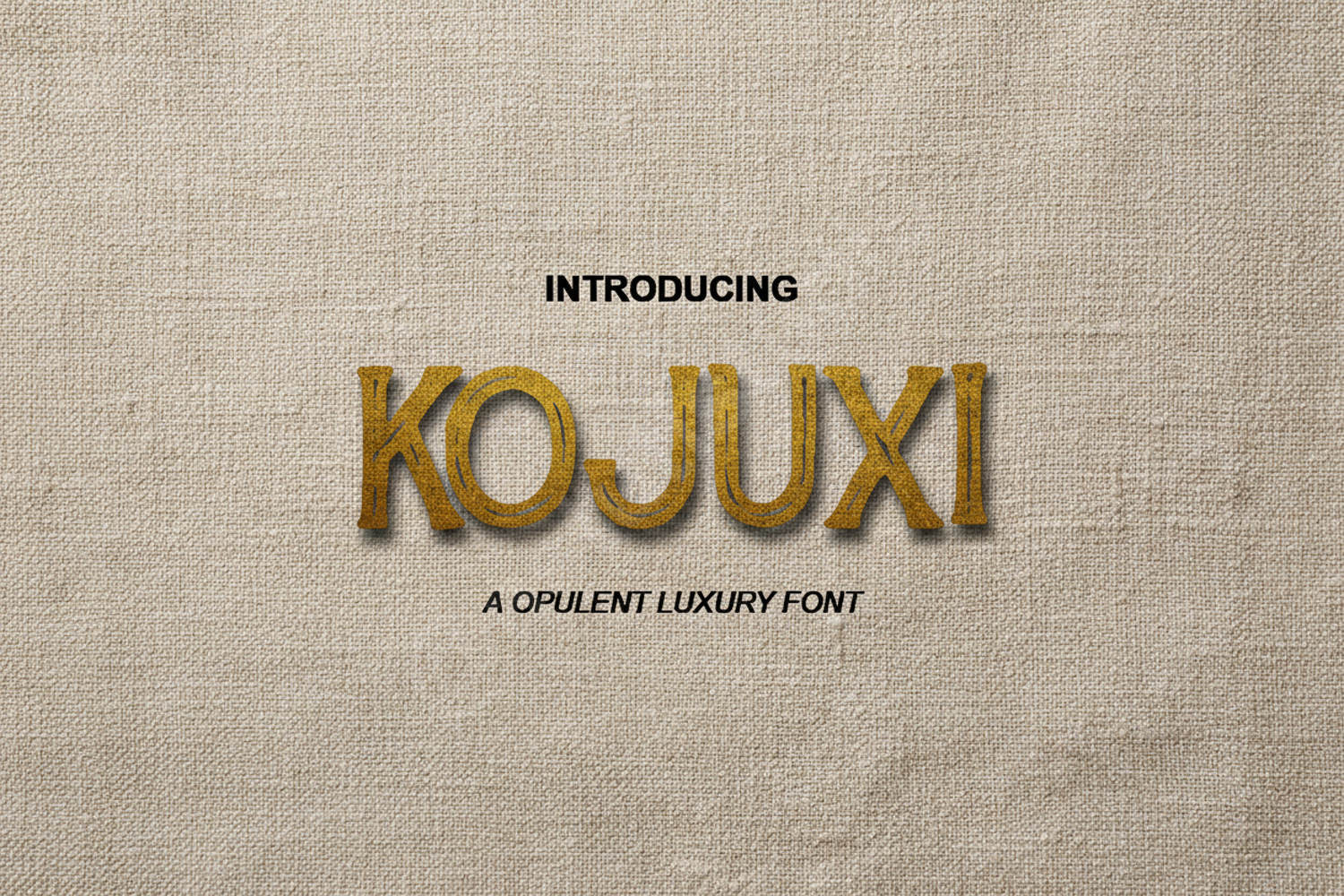
Kojuxi - Sophisticated Modern Sans Serif
Kojuxi
Elevate your design projects with Kojuxi, a premium sans serif typeface that defines modern sophistication. Meticulously crafted with geometric precision and a clean aesthetic, Kojuxi offers a perfect balance of minimalism and character. Whether you are working on high-end branding or sleek digital interfaces, this font provides the professional edge required for contemporary design work.
- Full set of Uppercase and Lowercase characters
- Numbers and Punctuation
- Comprehensive Multilingual Support
- Branding and Corporate Identity: Create a lasting impression with a clean and authoritative logo.
- Editorial Design: Perfect for headlines and body text in high-fashion magazines or tech journals.
- Luxury Packaging: Enhance product shelf appeal with minimalist and elegant typography.
- Modern Websites: Ensure readability and a sleek look for digital platforms and UI/UX projects.
- Social Media Graphics: Stand out in the feed with bold, professional-grade visual content.